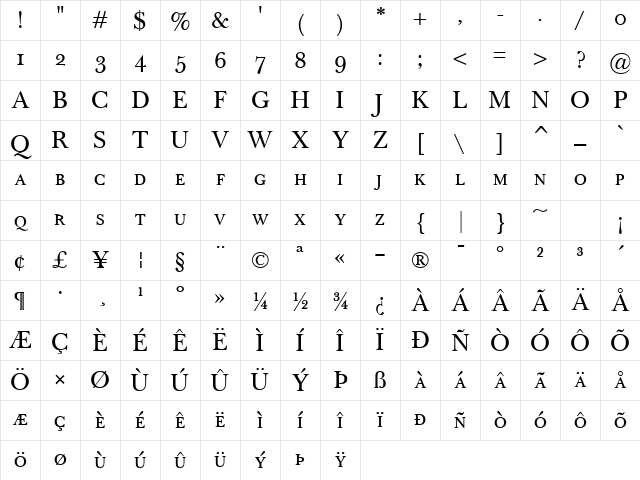
Baskerville Classico SC Regular Free Font
Baskerville Classico SC Regular
Design Context for Baskerville Classico SC
Baskerville Classico SC wears its vintage influences proudly, with letterforms that recall mid-century signage, classic packaging, and nostalgia-driven design.
Font Pairing: Combine Baskerville Classico SC with a simple slab or neutral sans - period-accurate companions reinforce the vintage feel without competing for attention.
Pro Tip: Lean into Baskerville Classico SC's period character by pairing it with aged paper textures, muted colour palettes, and vintage illustration styles.